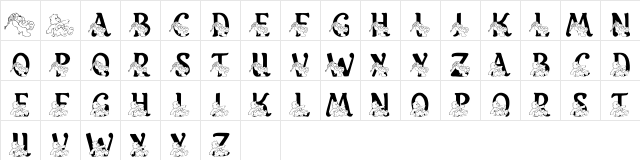
LMS Charismatic Care Bears Regular
Design Context for LMS Charismatic Care Bears Typeface
LMS Charismatic Care Bears is a composed and adaptable typeface that performs quietly and consistently across a wide range of design contexts.